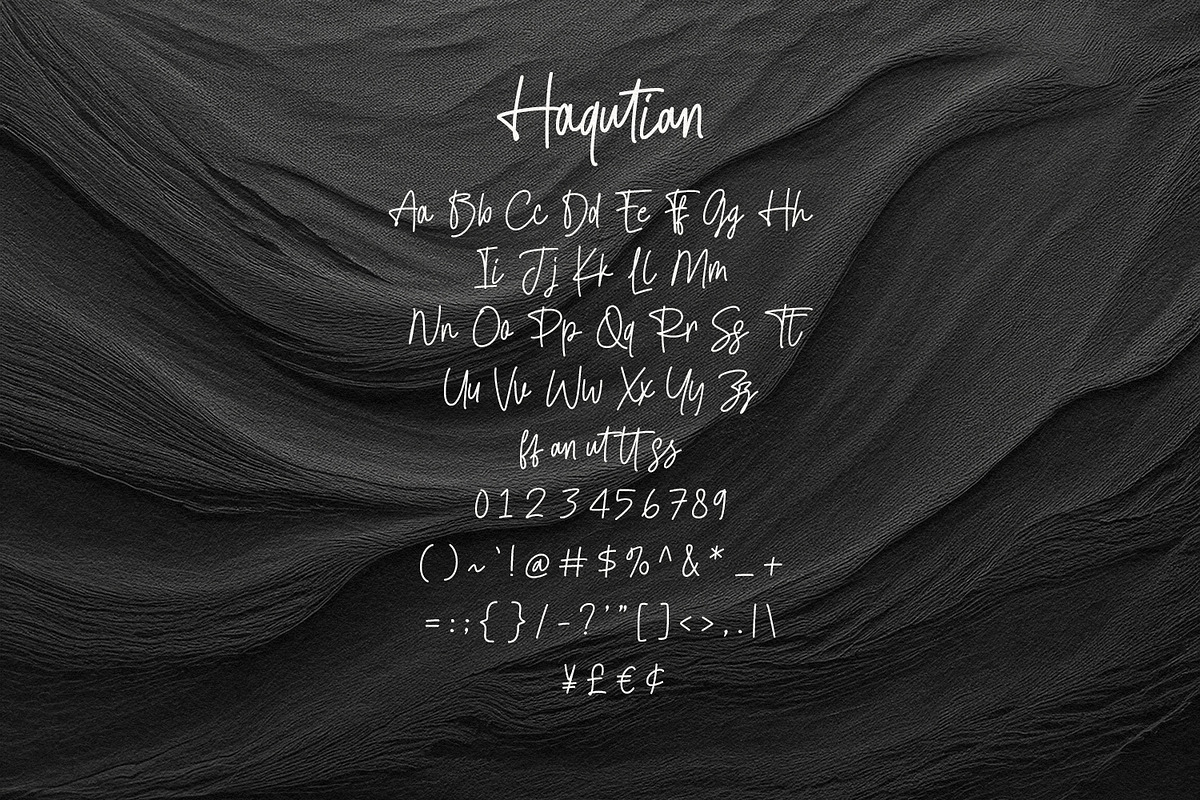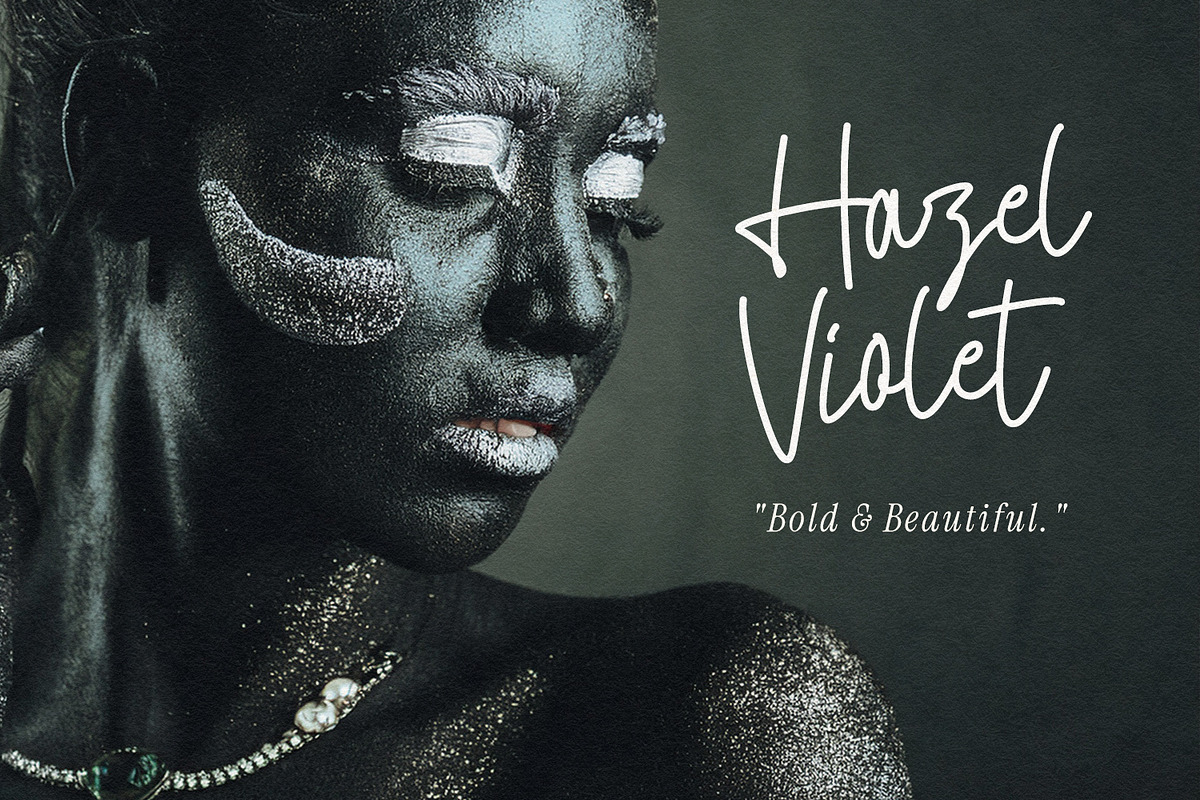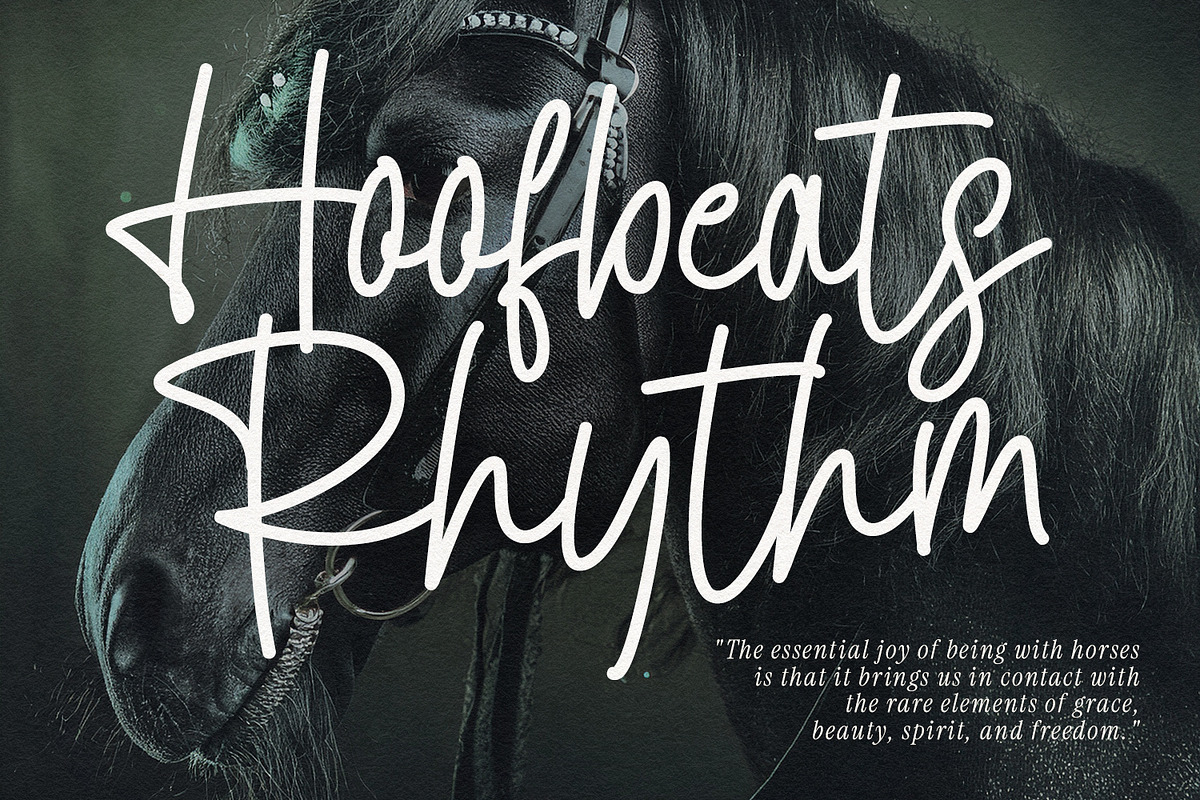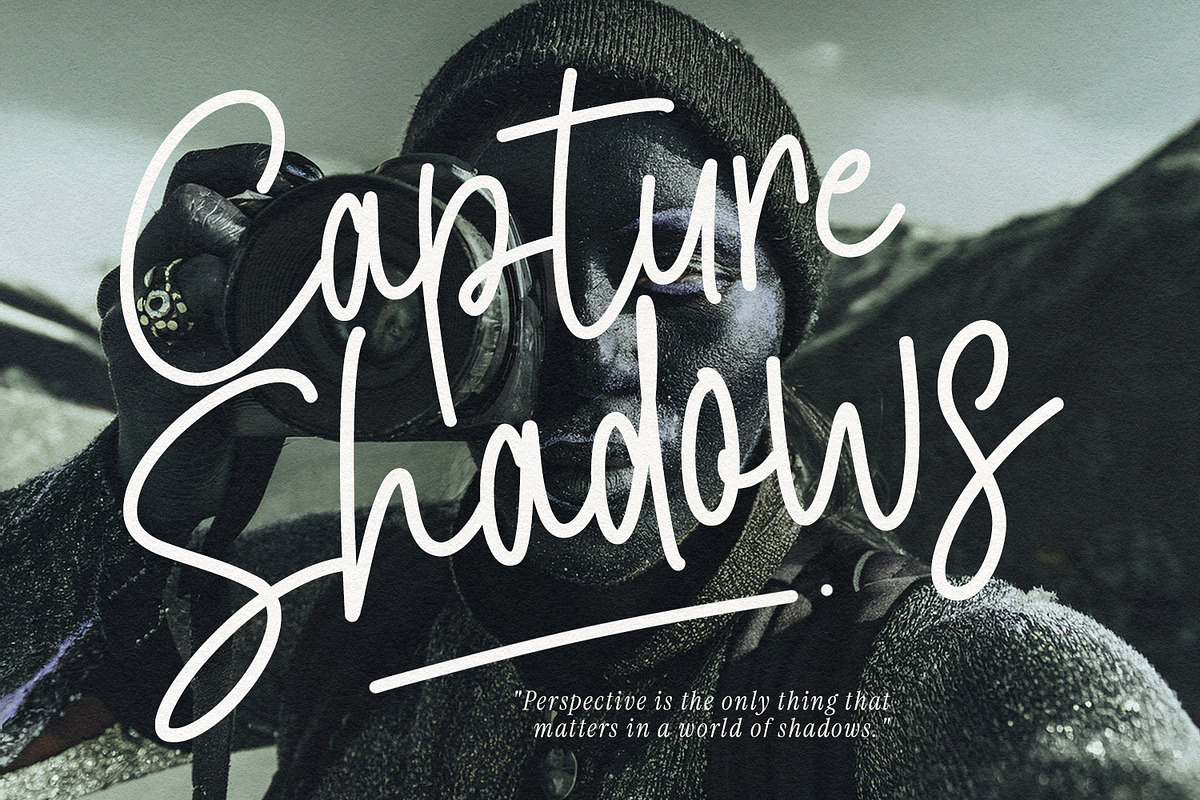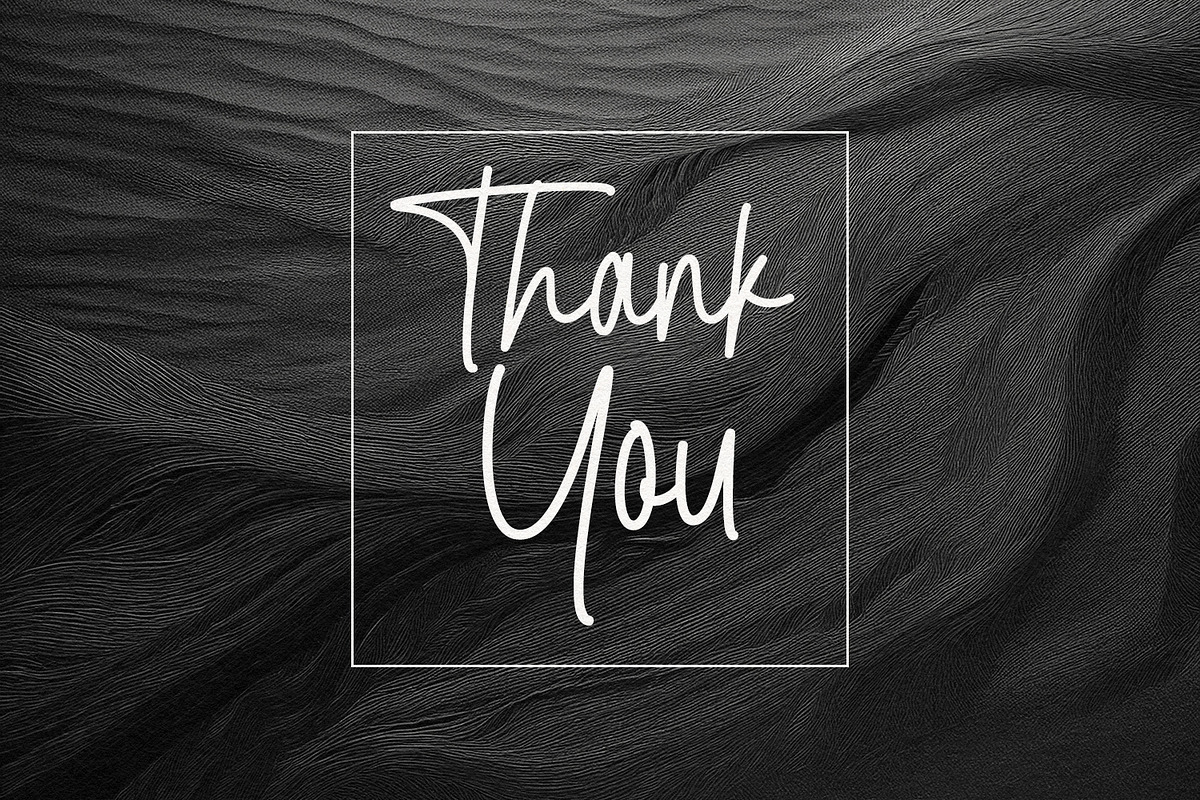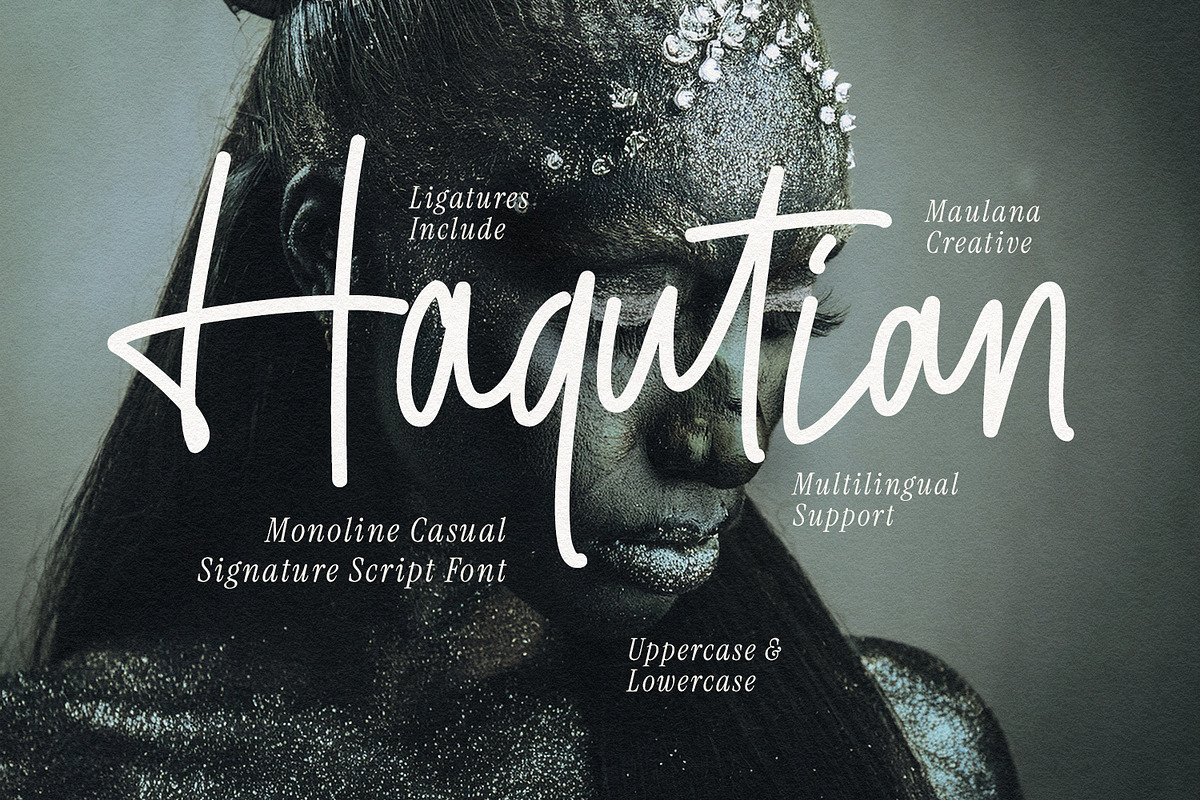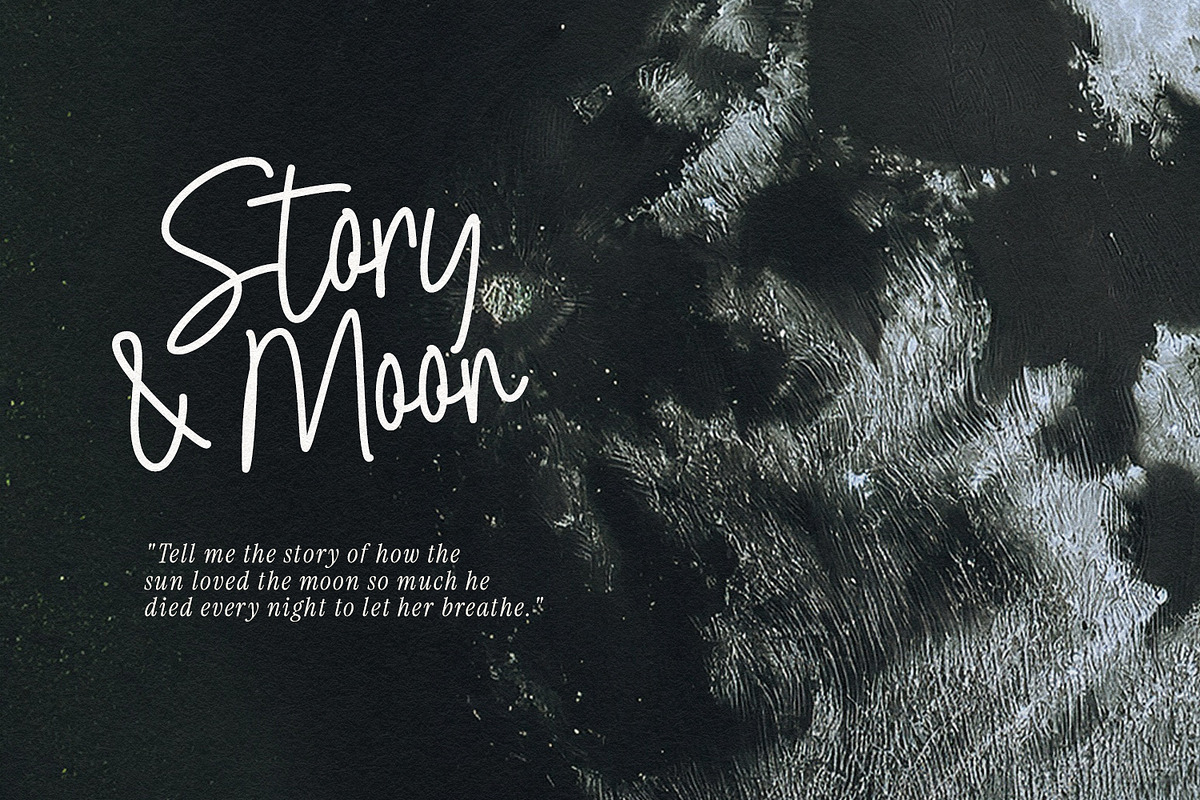
Haqutian Monoline Casual Signature
Haqutian is a stylish monoline casual signature script font designed to bring a touch of personal elegance to your creative projects. With its smooth, flowing lines and natural handwritten feel, this font captures the essence of a modern signature. It comes fully equipped with uppercase and lowercase letters, numerals, and punctuation, alongside specialized ligatures to enhance its authentic look. Supporting multiple languages, Haqutian is an ideal choice for branding, photography watermarks, wedding invitations, social media quotes, and high-end product packaging where a sophisticated, personal touch is required.
- Full character set (Uppercase & Lowercase)
- Numbers, Punctuation, and Symbols
- Ligatures for a natural handwriting flow